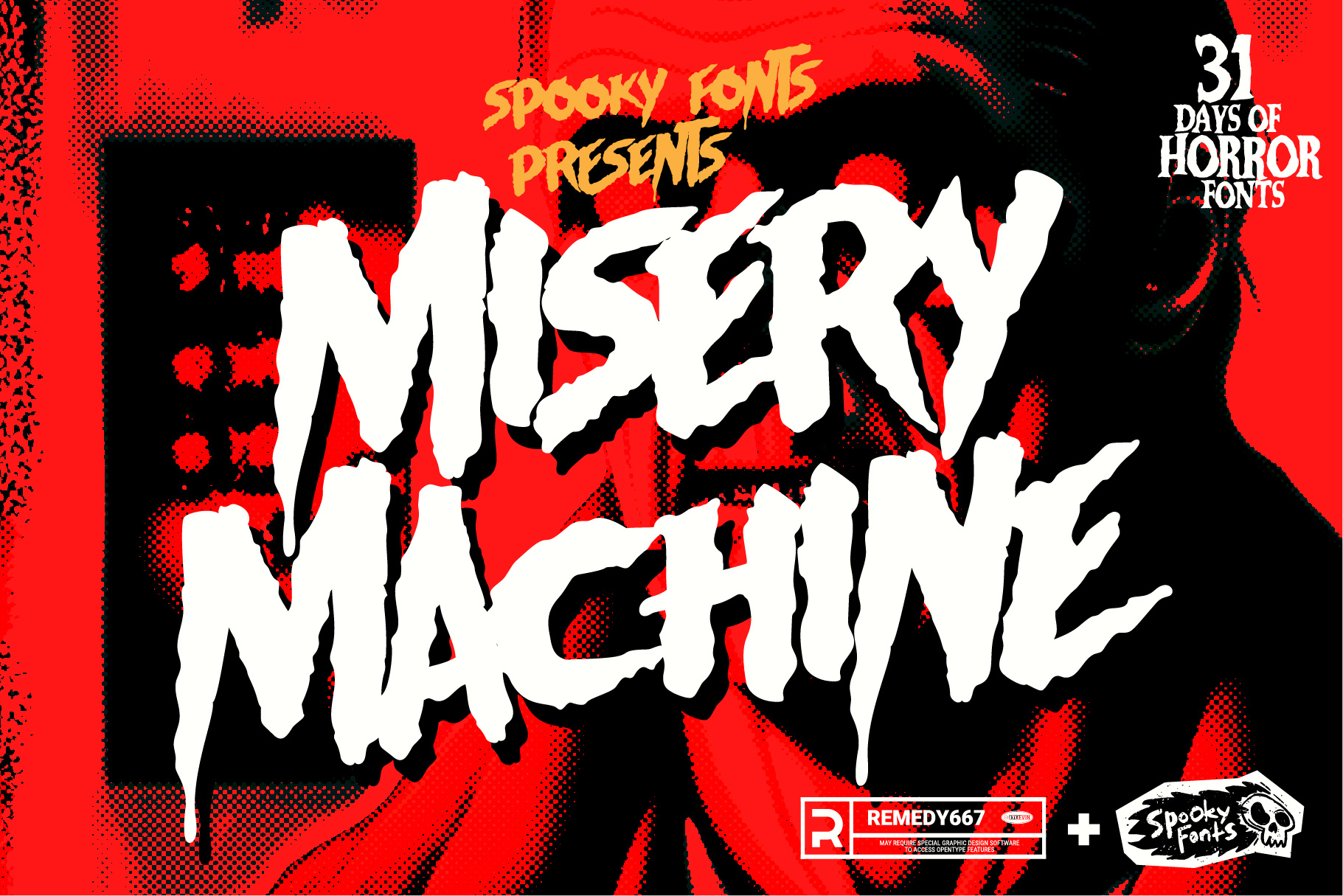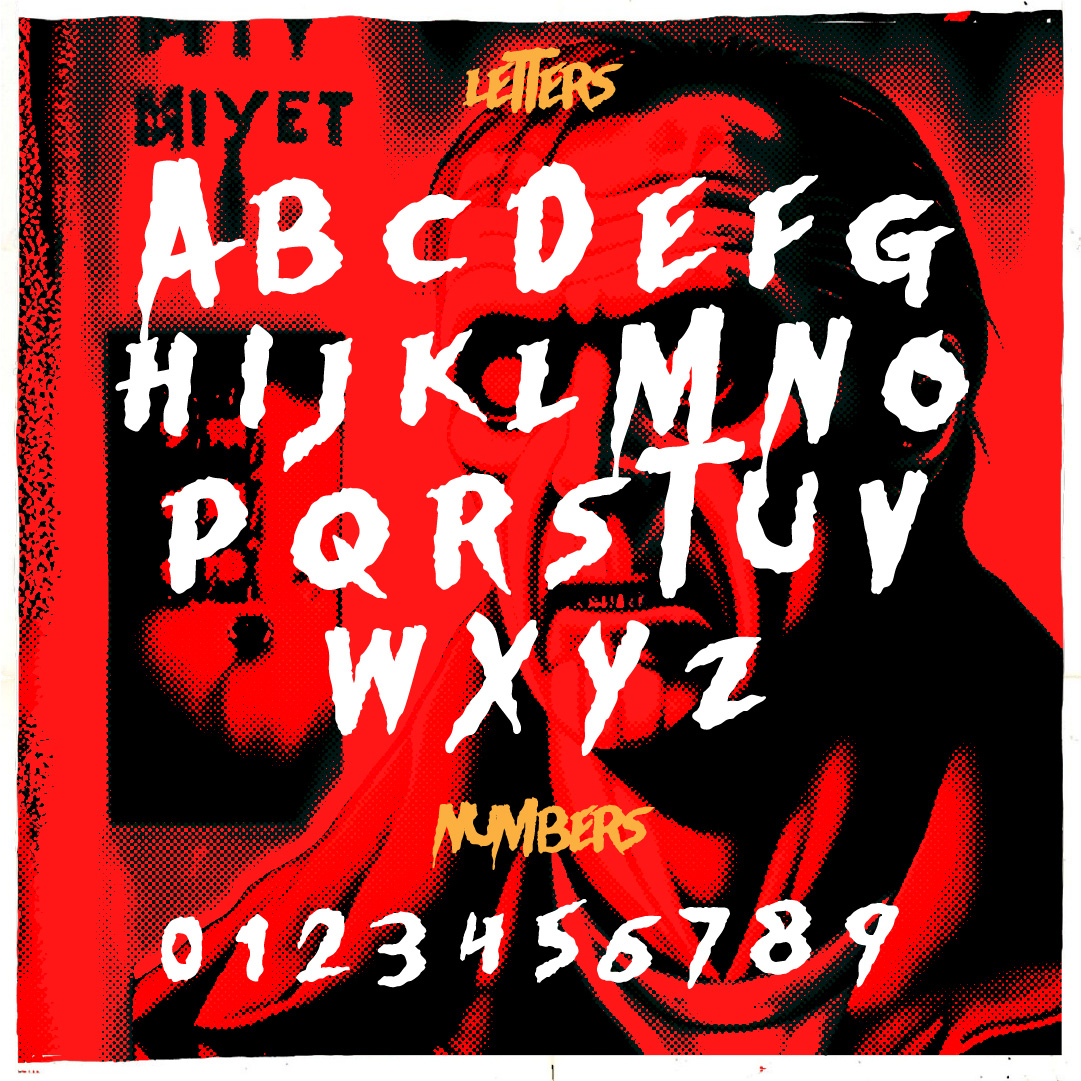
Misery Machine
A bloodstained horror font for nightmarish novels with terrifying twists.
Are you tired of the same old boring fonts? Do you long to bring a touch of darkness and horror to your designs? Look no further than the Misery Machine, a bloodstained horror novel influenced typeface that will send shivers down your spine and make your words come alive with a nightmarish twist! This wickedly unique font is perfect for any project that needs an eerie and unsettling atmosphere. From haunted house flyers to Halloween party invitations, Misery Machine will leave a lasting impression on anyone who dares to read it.
The benefits of using Misery Machine are endless. Each letter has been meticulously crafted to capture the essence of terror – its jagged edges reminiscent of sharp knives cutting through flesh, while intricate drips of blood stain each character as if they were fresh from a gruesome murder scene. When you use this font, every word becomes an experience in itself, drawing readers into a macabre world filled with shadows and secrets. The chilling effect it creates is unmatched by any other typeface out there.
Not only does Misery Machine deliver bone-chilling aesthetics, but its legibility remains intact even amidst its horrifying design elements. The characters may seem twisted and distorted at first glance, but upon closer inspection, their clarity shines